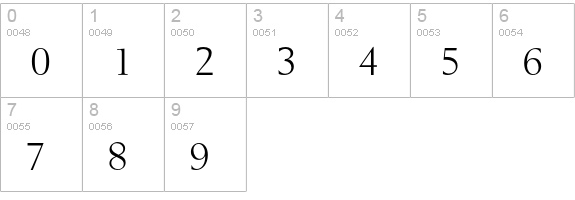
BerlingEF-Regular Font Details
BerlingEF-Regular is the standard, neutral variant in the BerlingEF typeface family \xE2\x80\x94 well suited to general body text, paragraphs, and standard typographic work.
BerlingEF-Regular is a classic and elegant font that exudes sophistication and style. Its timeless design makes it suitable for a wide range of projects, from formal invitations to branding materials. The font features clean lines and a balanced weight, making it easy to read and pleasing to the eye. What sets BerlingEF-Regular apart is that it is available for free download at FontsMarket.com. This means that you can access this beautiful font without any cost, allowing you to enhance your projects without breaking the bank. Whether you are a designer looking for a versatile typeface or a business owner seeking a professional font for your marketing materials, BerlingEF-Regular is the perfect choice. Download it today and elevate your designs with this stunning and freely available font.